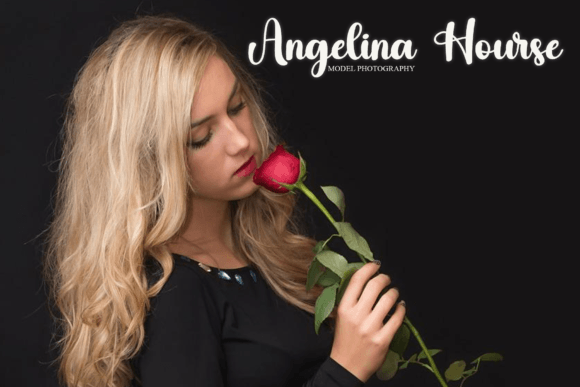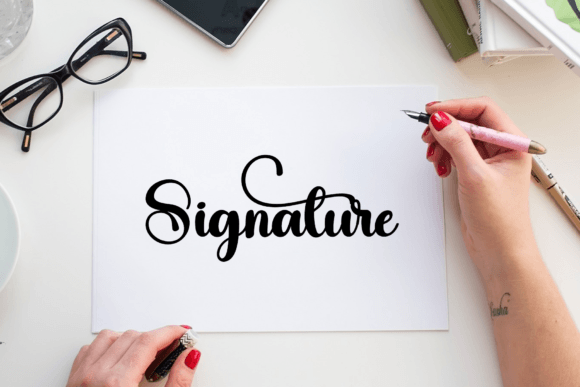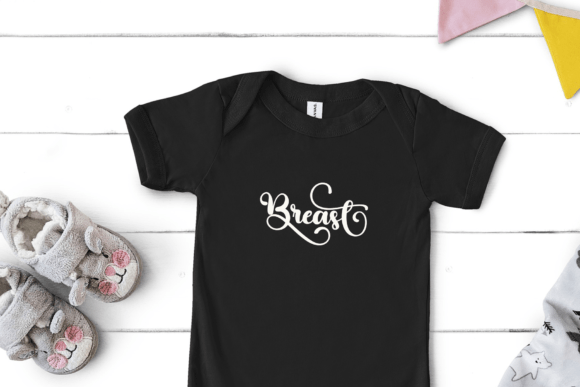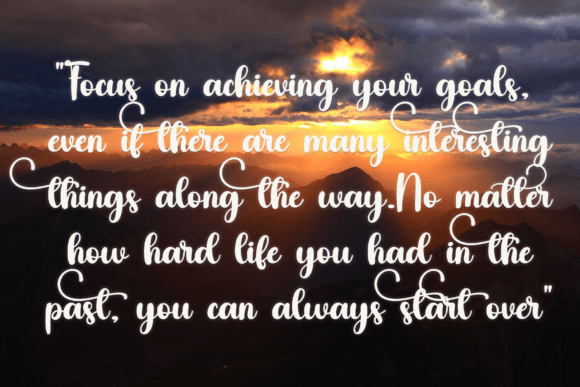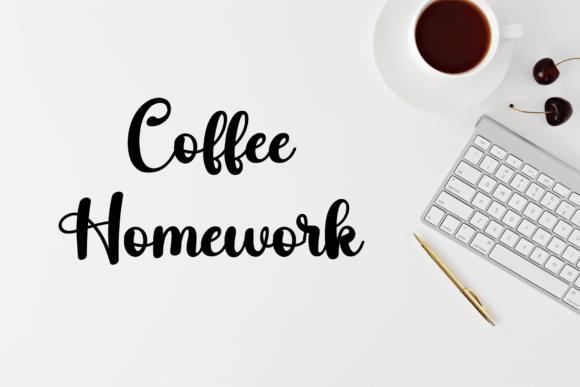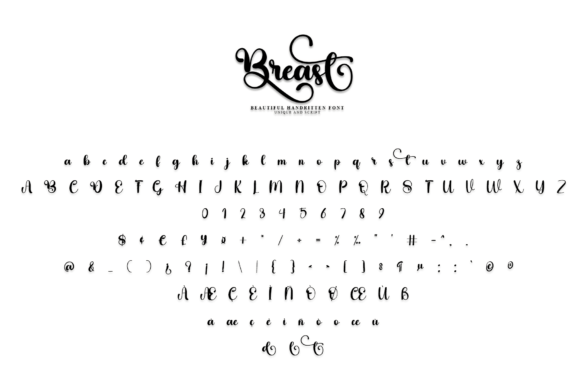
About Breast Font
“Breast” is a delicate handwritten font, meticulously crafted to bring a cool and unique design to your creative projects. This font offers versatility, making it suitable for various applications, including writing letters, designing invitations, labeling food products, creating captivating titles, and more.
The delicate nature of “Breast” is reflected in its carefully designed characters, contributing to an aesthetic that is both charming and unique. This handwritten font adds a personal touch to your text, making it well-suited for projects that require a cool and distinctive design.
Whether you’re crafting letters, designing invitations for special occasions, creating labels for food products, or working on eye-catching titles, “Breast” adapts seamlessly to different contexts. Its versatility allows it to enhance the visual appeal of a wide range of creative endeavors.
In summary, “Breast” is not just a font; it’s a delicate and carefully crafted tool that adds a cool and unique touch to your designs. With its versatility, it can be used for writing letters, invitations, food product labels, titles, and more, ensuring a distinctive and appealing look for your creative projects.